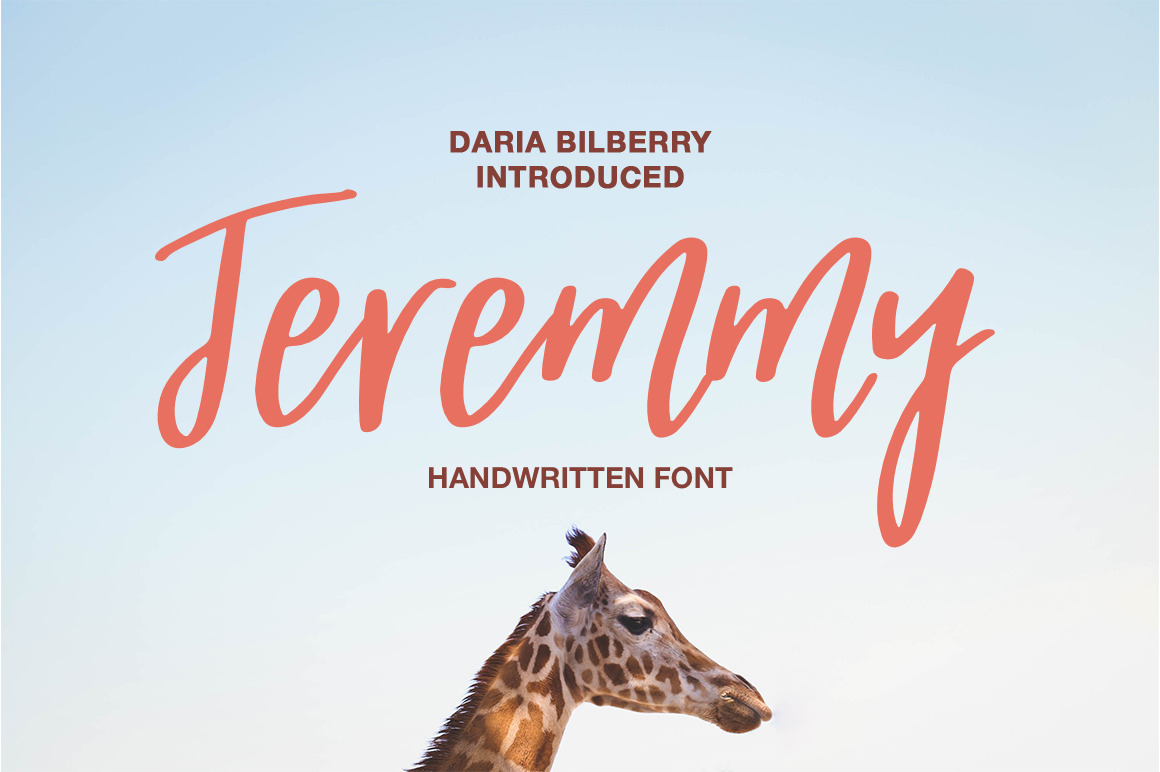
Jeremmy handwritten font
Meet new Handwritten font Jeremmy!
Jeremmy - a new handwritten font. Very suitable for greeting cards, branding materials, business cards, quotes, posters, and more!